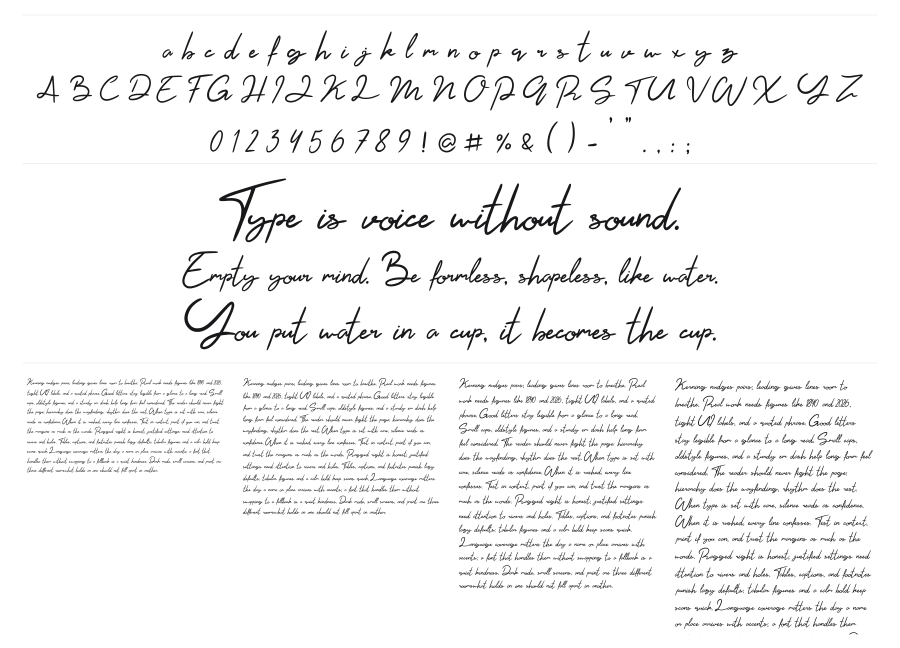
Elesty
Elesty is a casual handwritten script with a natural, pen-drawn flow that feels spontaneous without looking sloppy. Connected letters move with consistent rhythm, balancing thin linking strokes against slightly heavier main strokes for a legible, lively texture. It suits branding, packaging, and any context that calls for warmth and a personal touch.